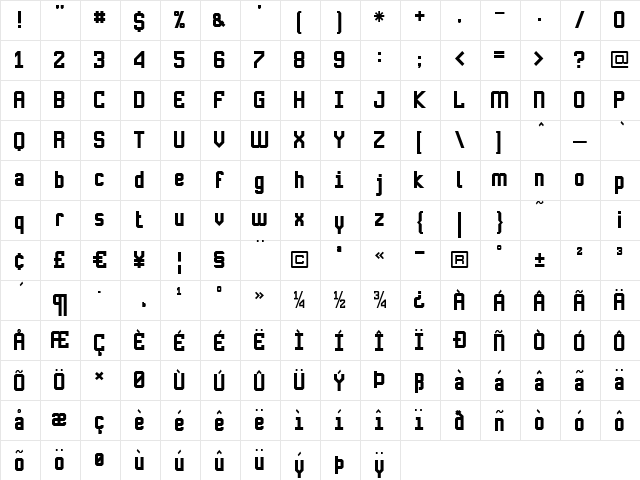
Submarine Bold
Design Context for Submarine Typeface
Submarine offers clean, dependable letterforms without strong stylistic allegiance, making it a practical choice for designers who need flexibility. Its bold stroke weight gives it real presence on the page.
Pro Tip: Use Submarine in both headline and body roles to test its range before committing to a single application.